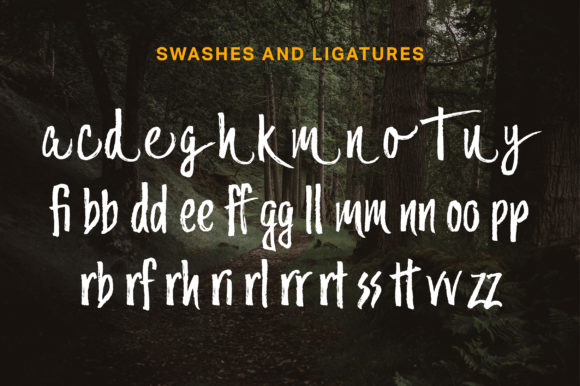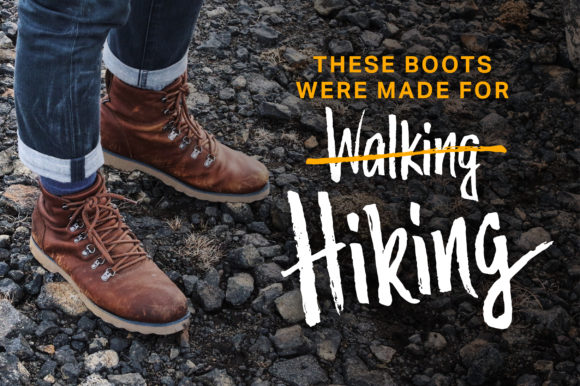
Trailmade Font
db-ku.com - Script & Handwritten -- Trailmade is a rugged and stylish brush font. Hand-lettered with a brush pen on paper with regular, italic, and extras styles. Explore an adventurous path with this typeface that ventures a little outside the typical brush script genre but still carries echoes of it. The upright design of the regular style has a confident appearance, while the italic style gives a little more of a signature look.